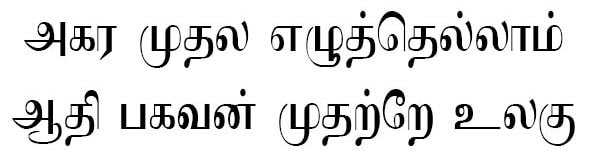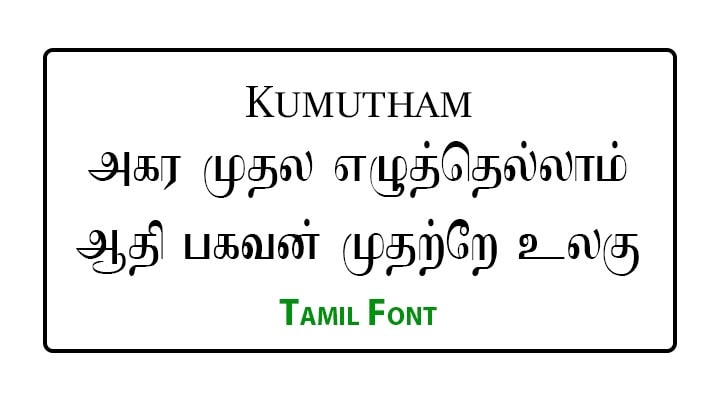
Kumutham Tamil Font Free Download. Kumutham is one of the Tamil Regular Font. Specially used in publications. Here you can download Font and Keyboard Layout for Free. This font is widely used by Tamil Nadu and Sri Lankan Tamil Peoples. The following font was design and generated by by Fontograpgher 3.5.
Kumutham Tamil Font Preview